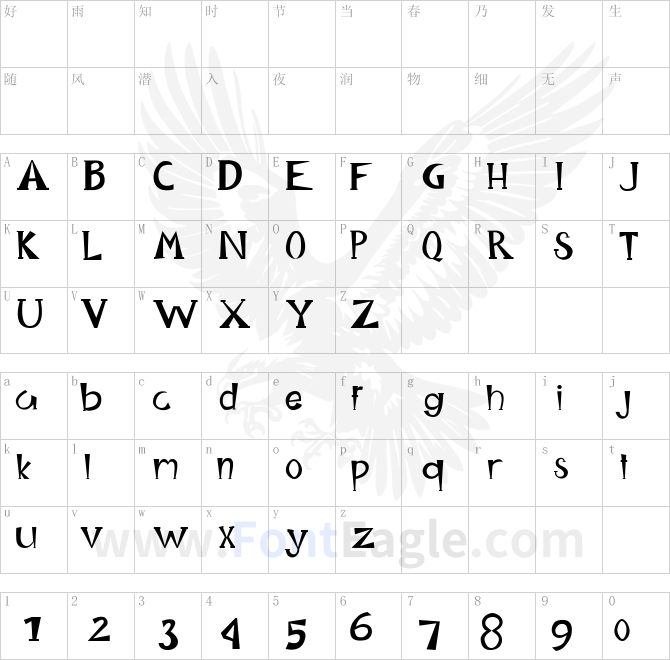
Happy-King-Medium is a great font, widely used in graphic design, single-page menu design, poster design and other fields, and is deeply loved by designers.Happy-King-Medium download.